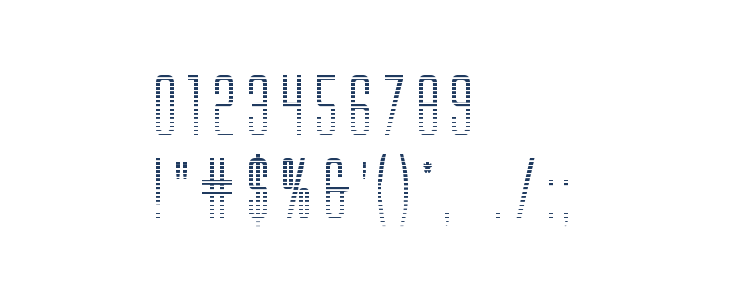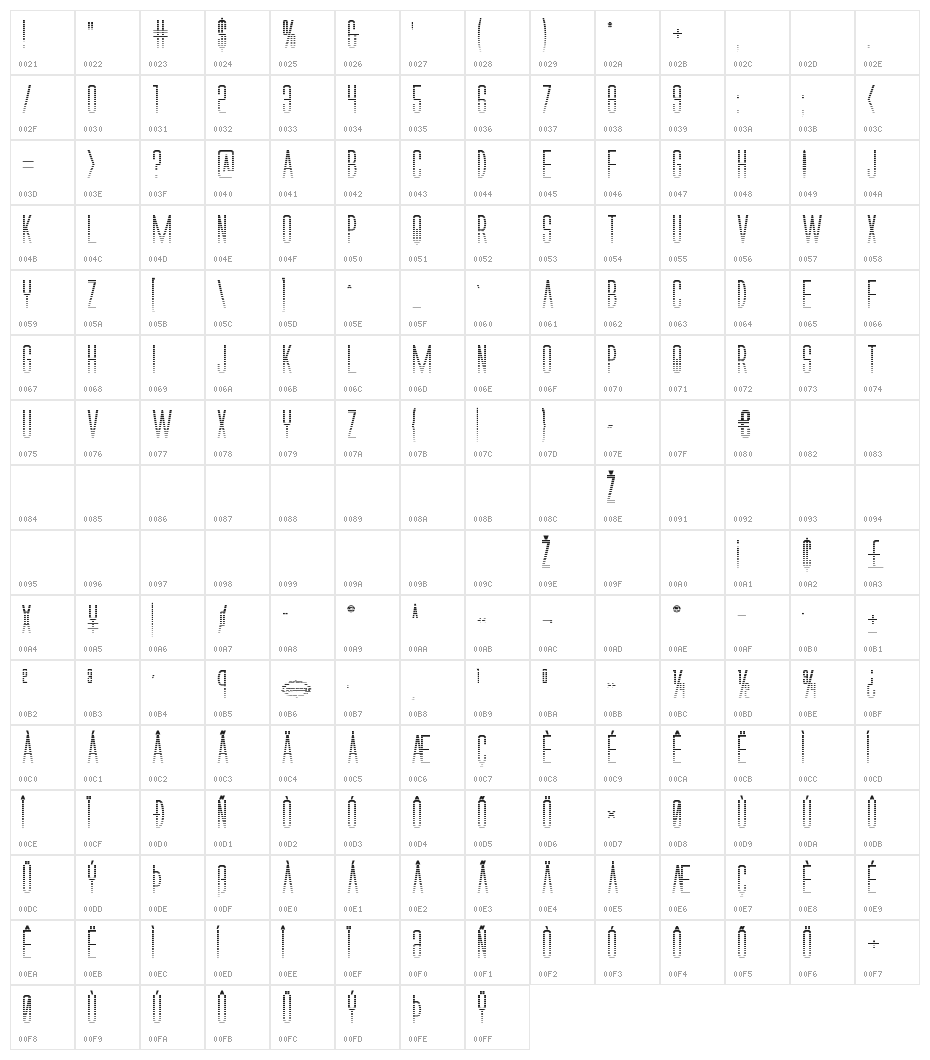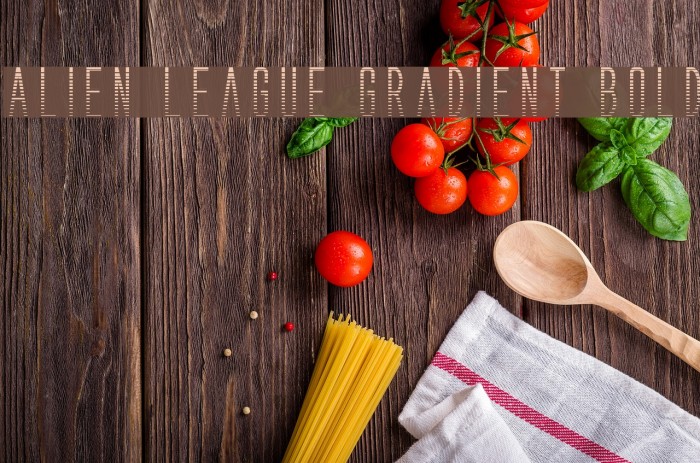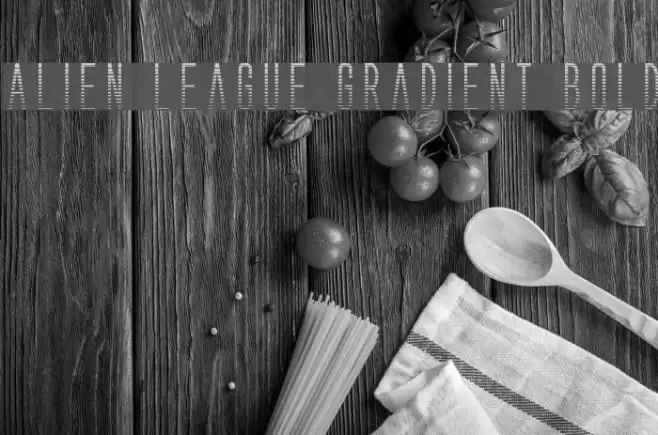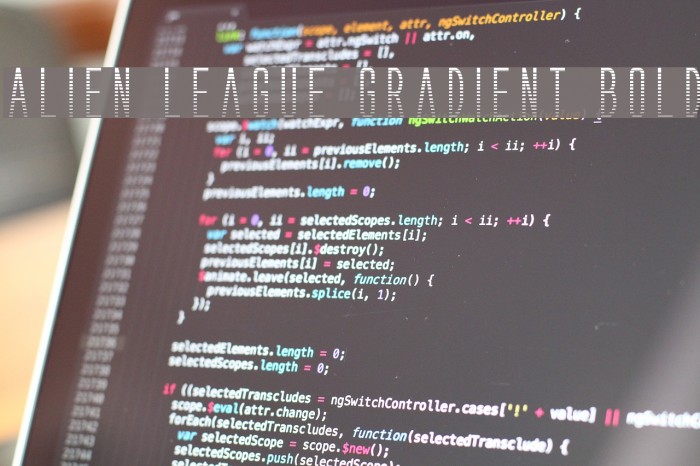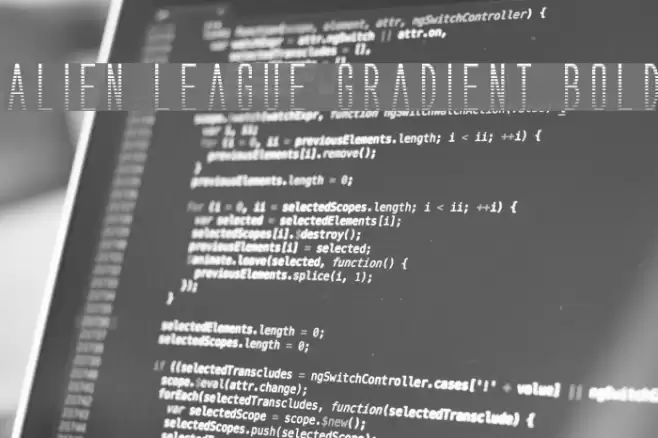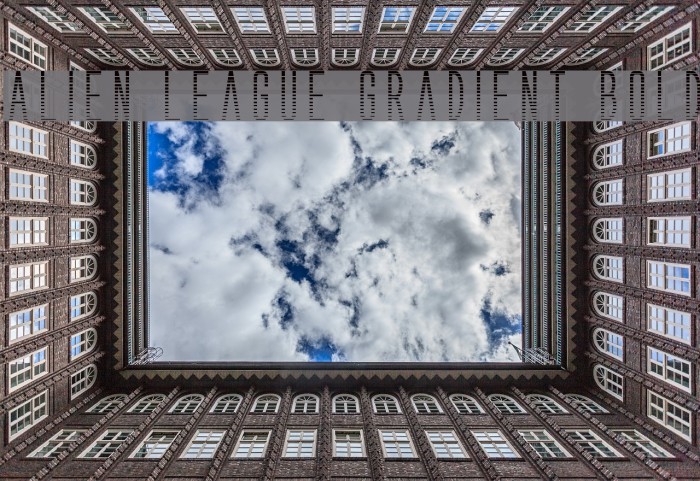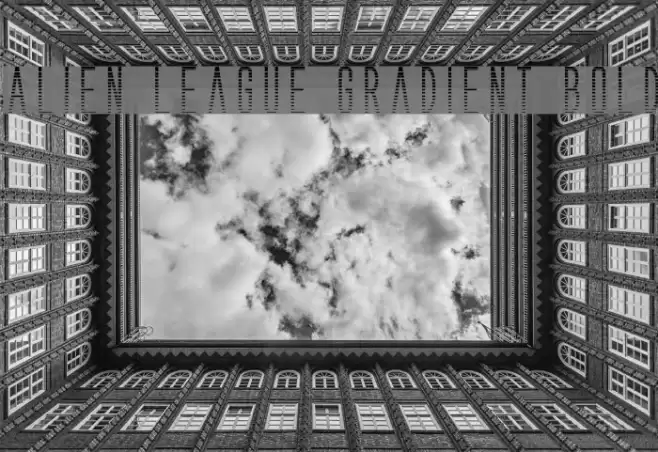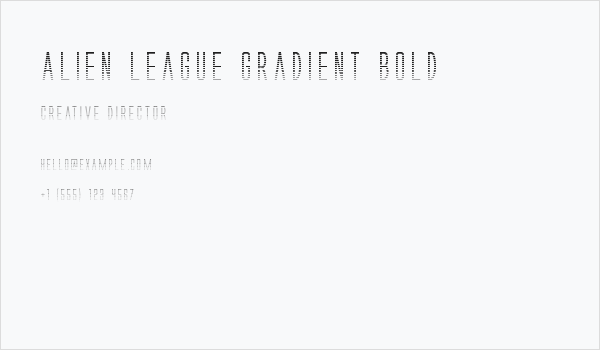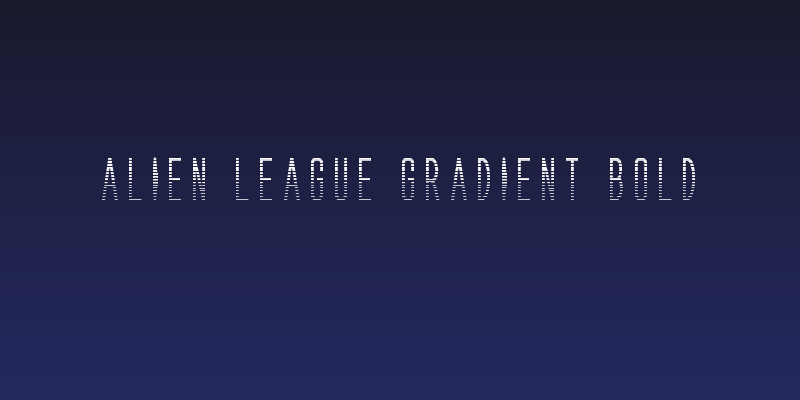
Alien League Gradient Bold Font
Alien League Gradient Bold Description
This font features a futuristic and bold design with a distinct gradient effect created by horizontal lines that vary in thickness. The uppercase letters are tall and narrow, giving a sleek and modern appearance. The characters are evenly spaced, maintaining a consistent rhythm across the text. The numbers and special characters follow the same stylistic approach, ensuring uniformity. This font's unique style makes it ideal for projects that require a modern and technological feel, such as sci-fi themed designs, tech branding, or digital media. Its boldness ensures visibility and impact, making it suitable for headlines and logos.
| Proposed Projects | Ideal for sci-fi themed designs, tech branding, digital media, headlines, and logos. |